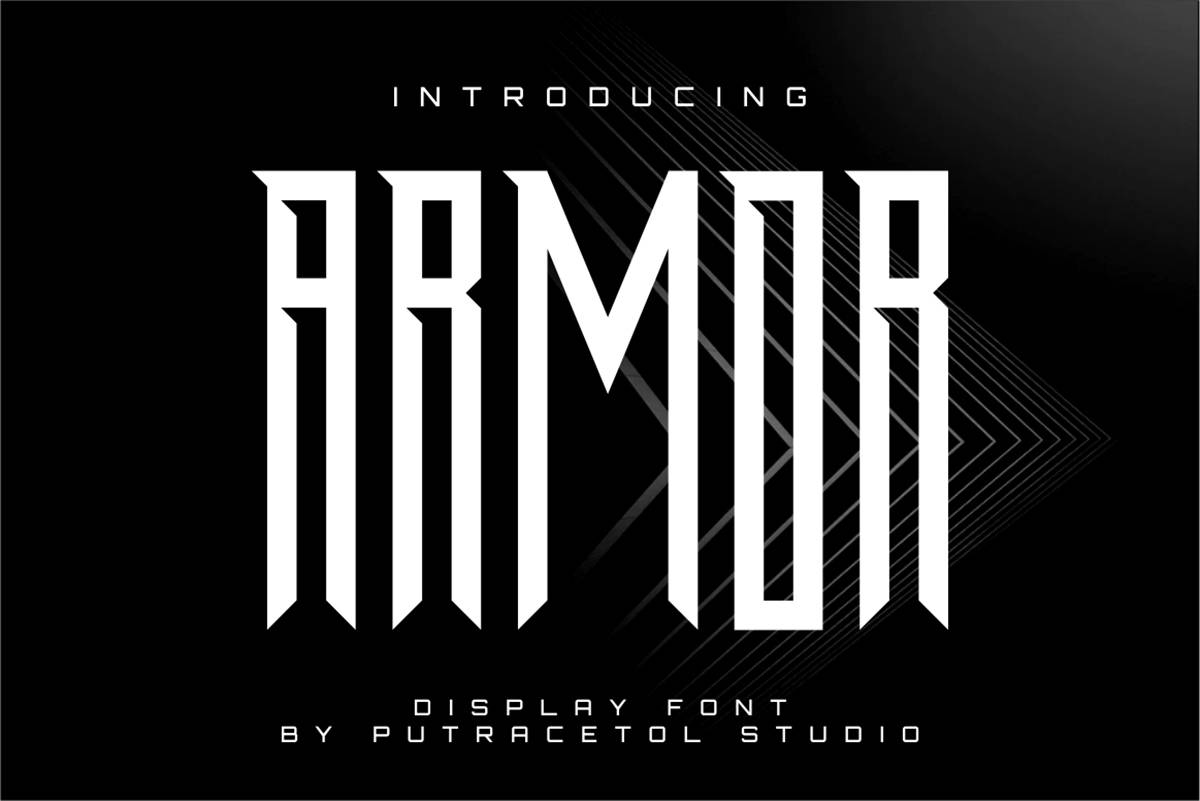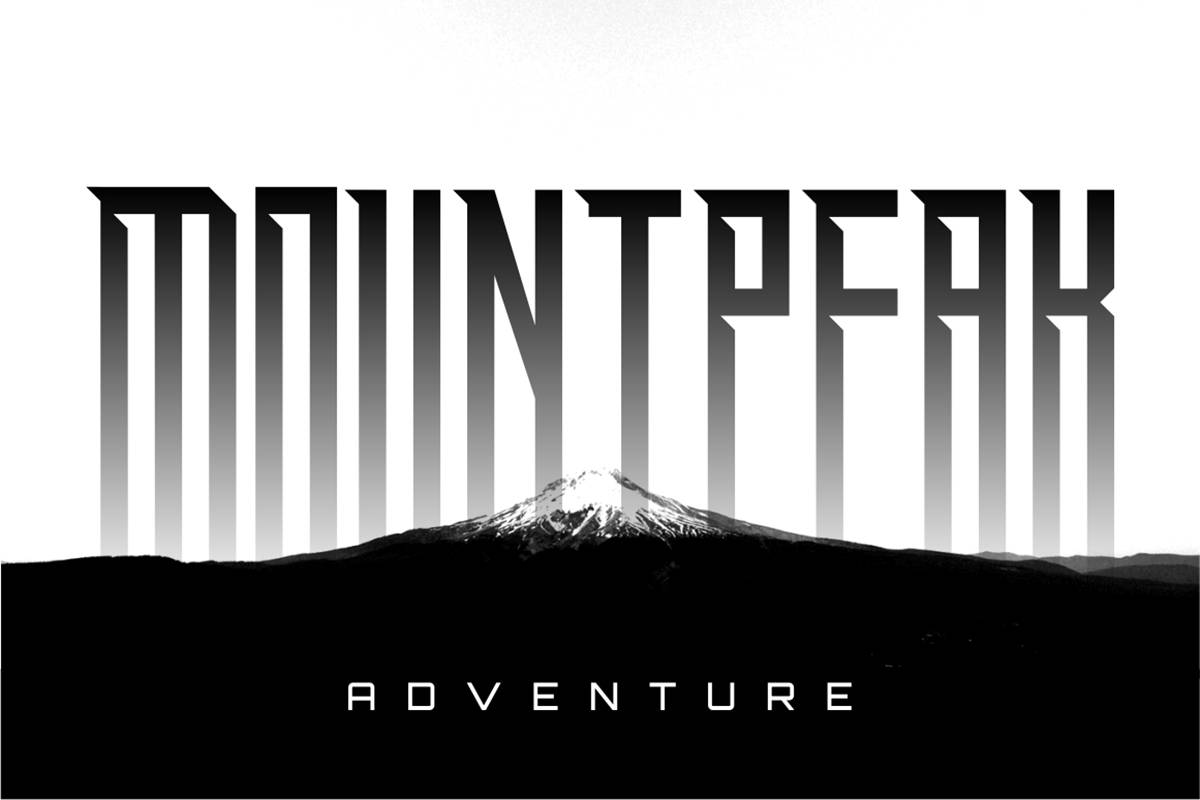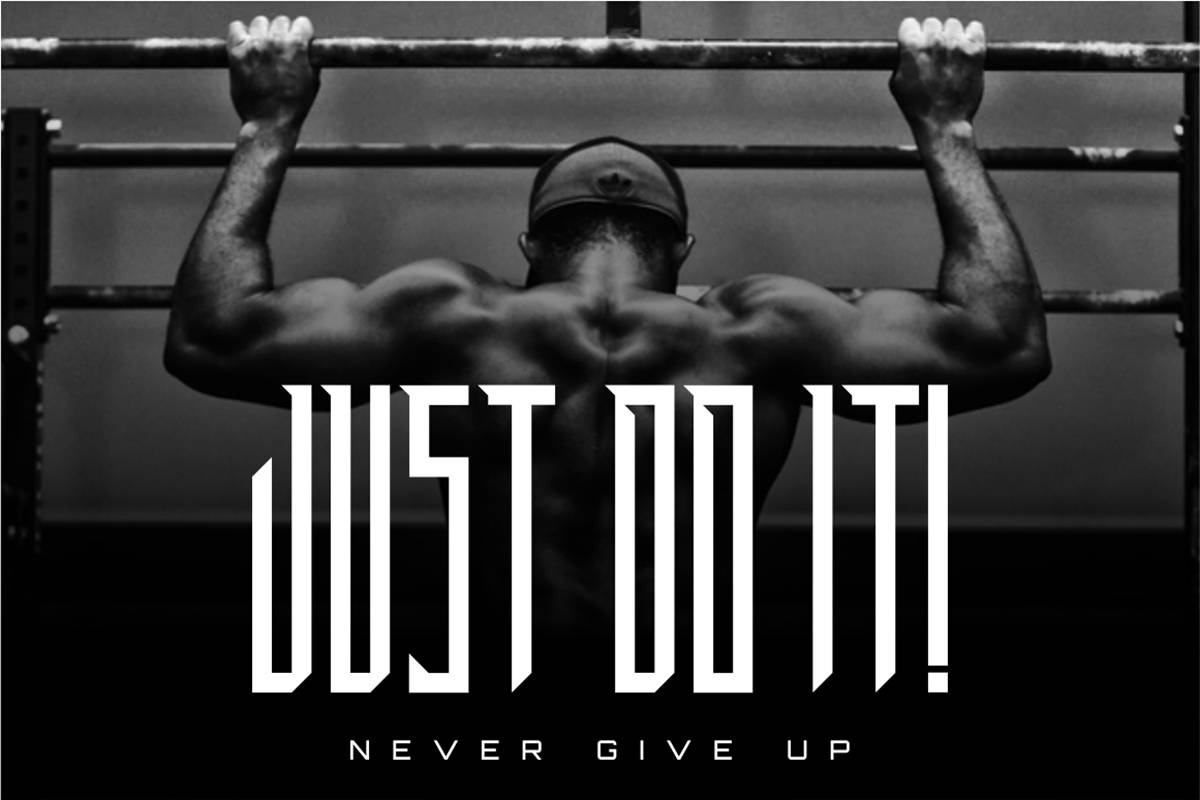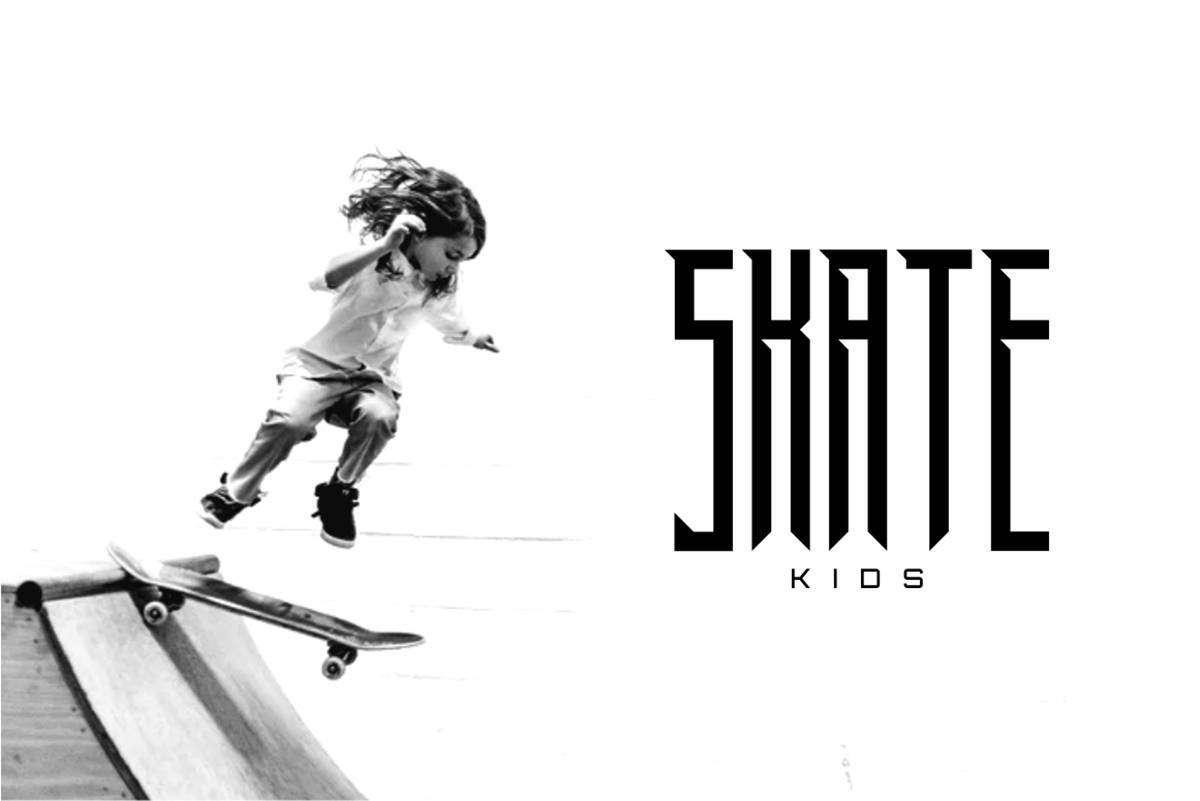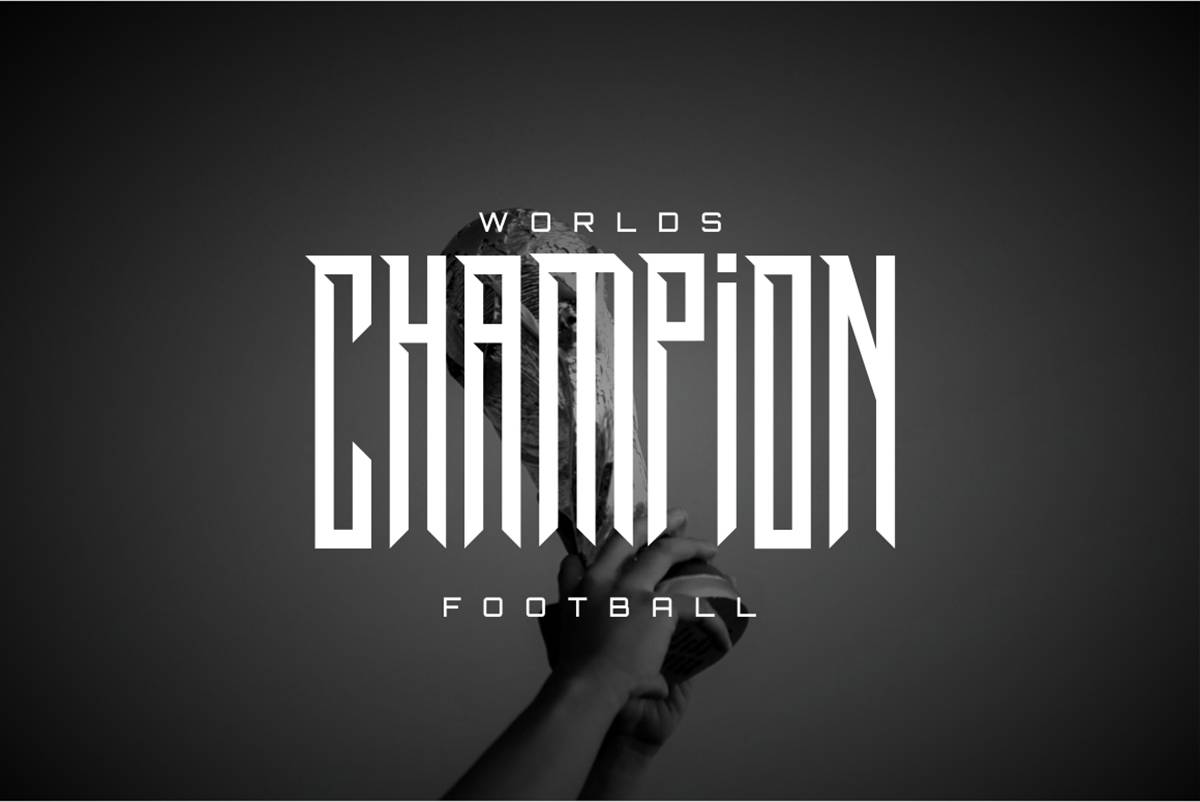
Armor is a tall, condensed sans serif font with sharp, geometric edges that give it a strong, almost futuristic character. Its high contrast and narrow letterforms make it perfect for bold headlines and branding that needs a sleek, modern, and commanding presence. This font works especially well for technology, fashion, or editorial designs seeking a distinctive, cutting-edge look.
Armor Font
About Armor Font
| Font family | Armor Font |